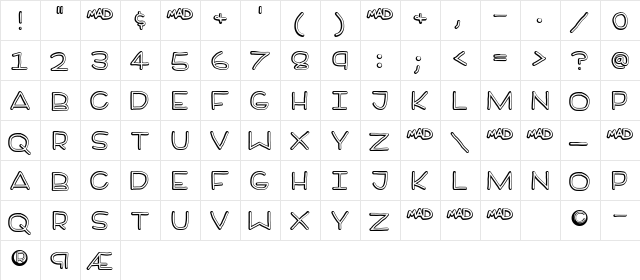
BrotherMan Regular
Design Context for BrotherMan Typeface
BrotherMan is a composed and adaptable typeface that performs quietly and consistently across a wide range of design contexts.